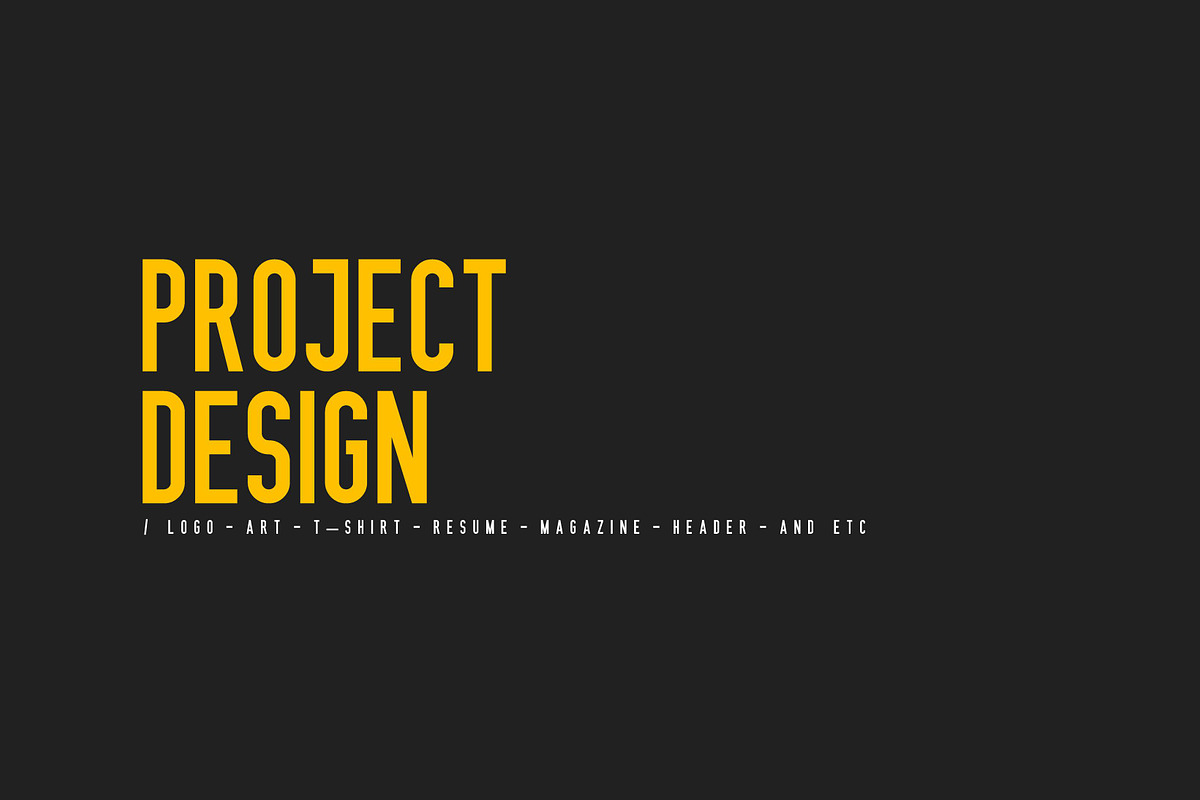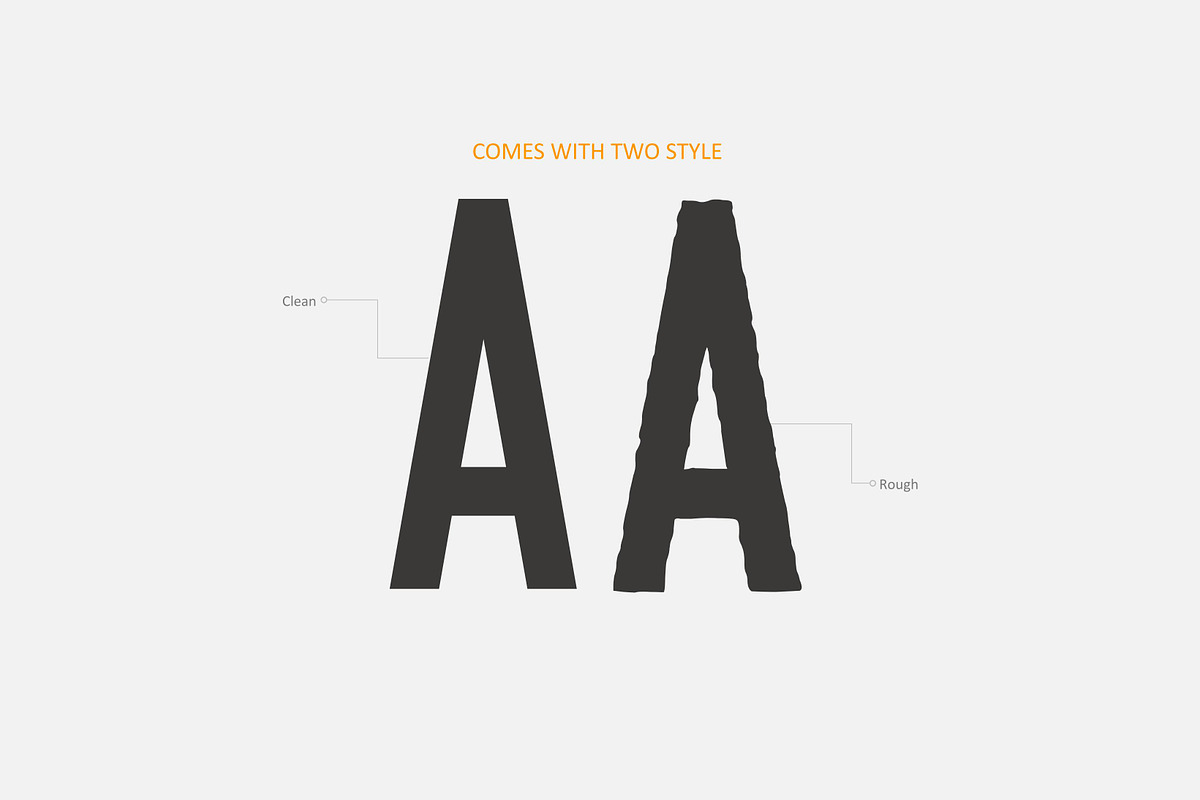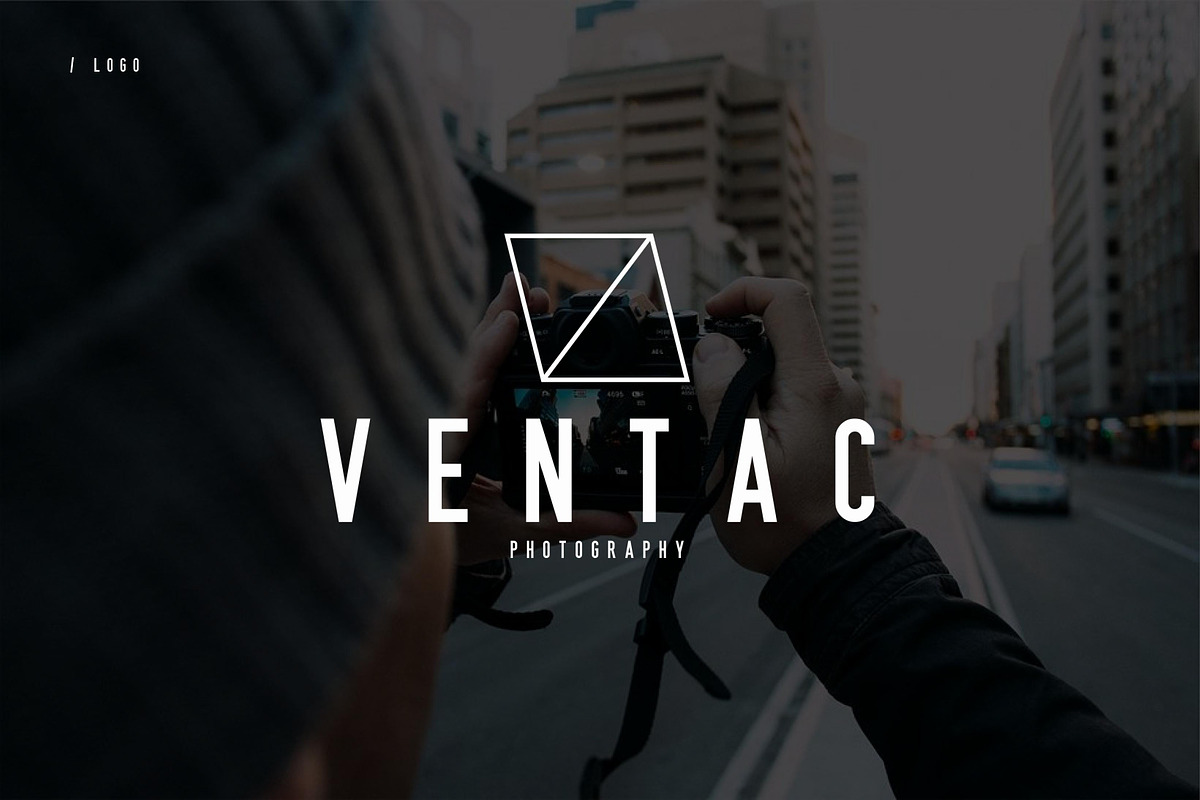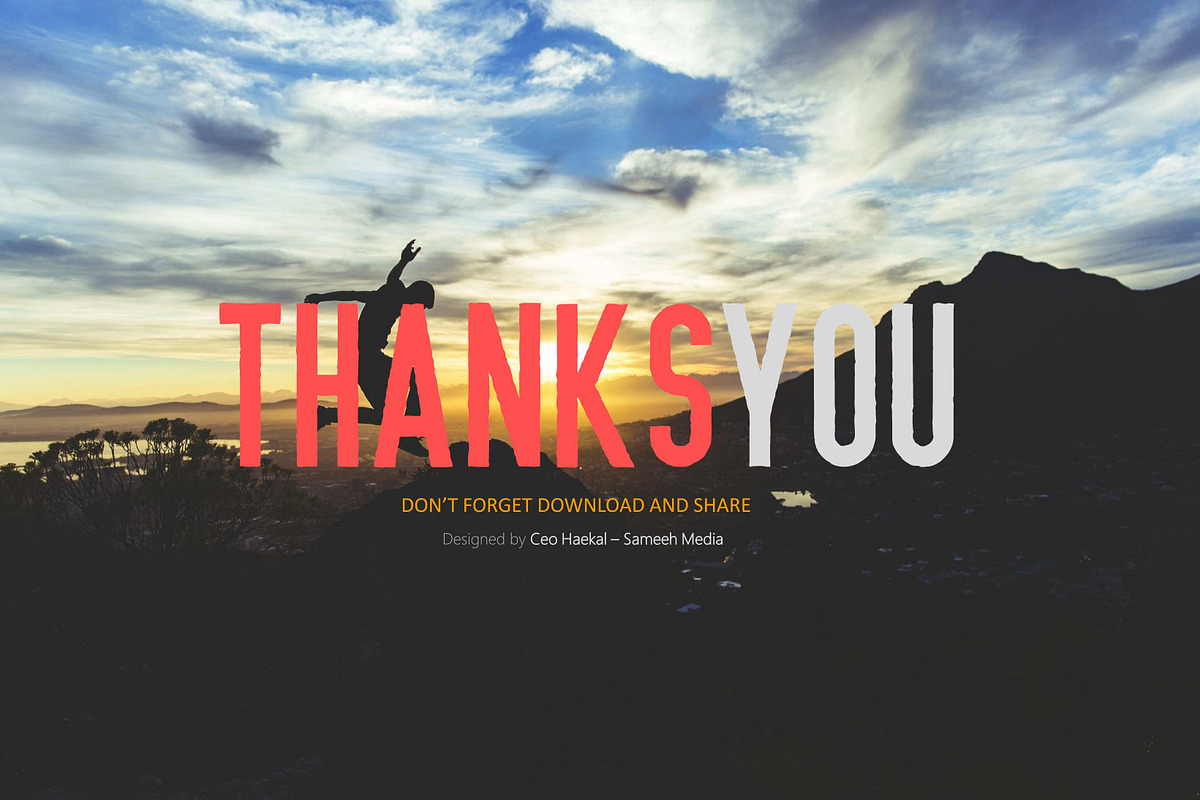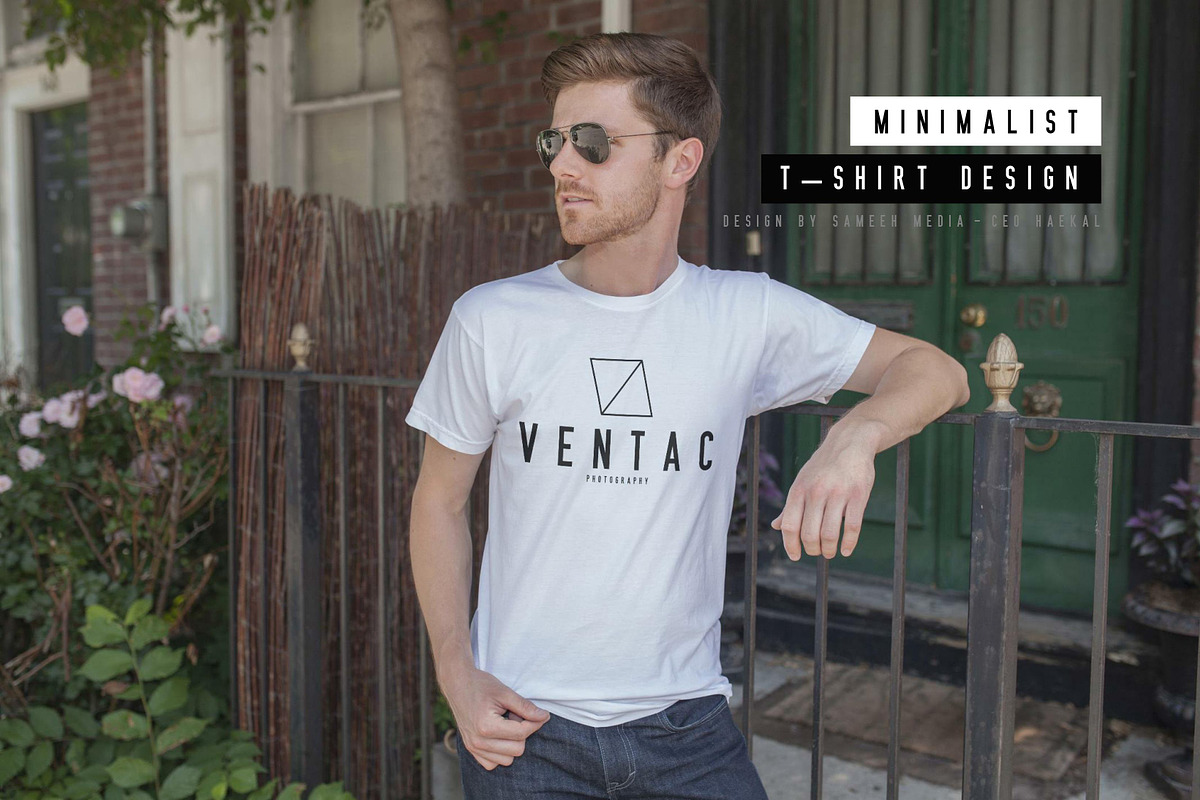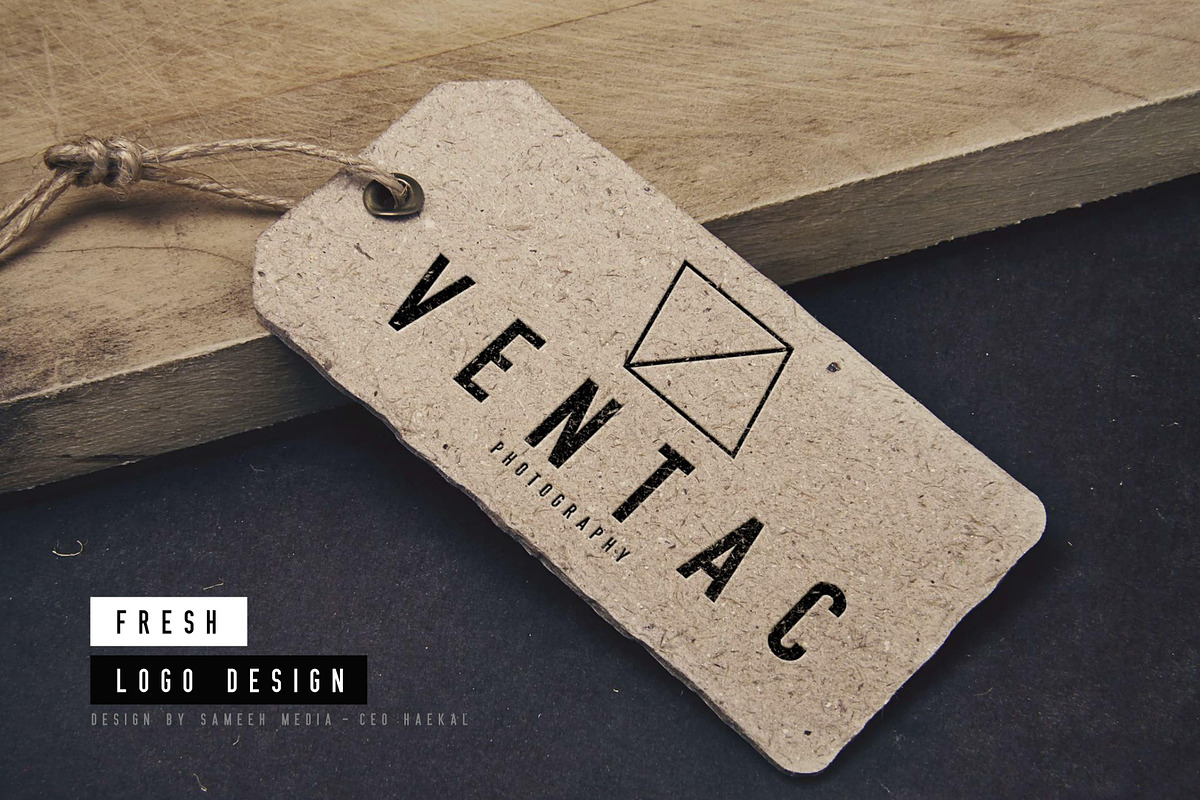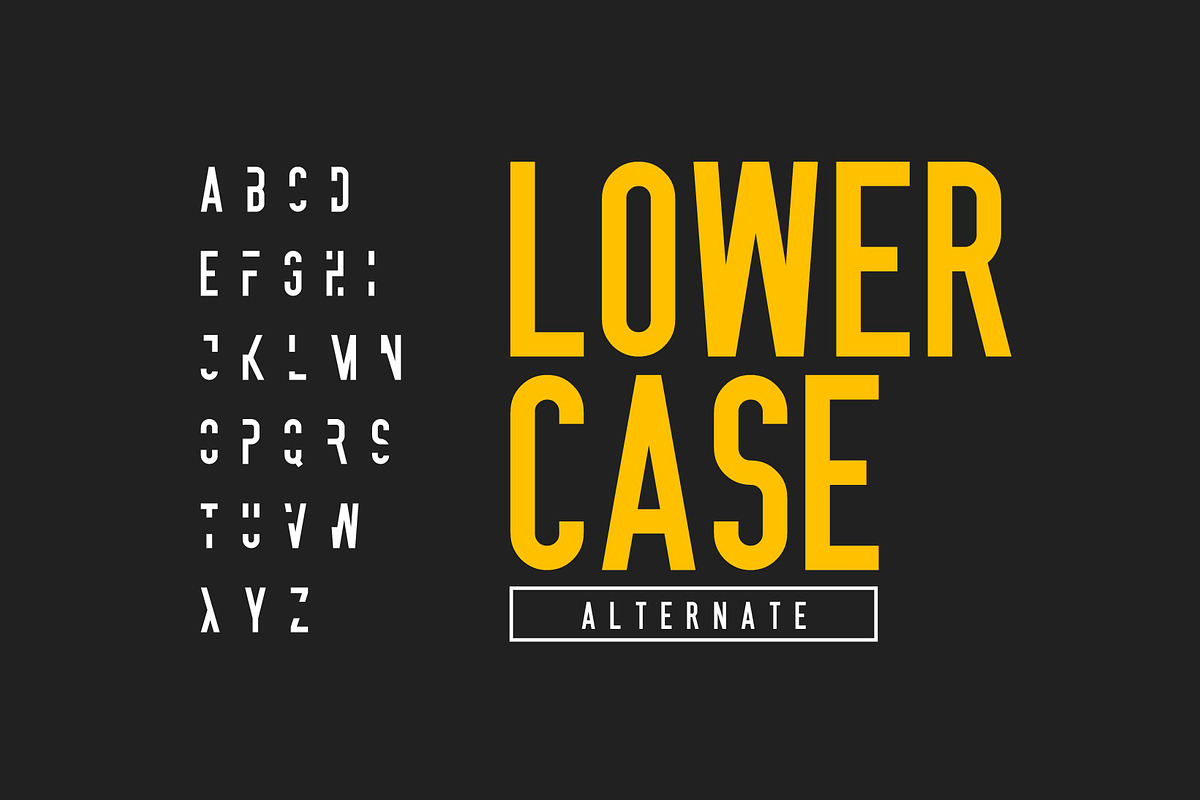
Sabang Island Typeface
Sabang is a city located on Pulau Weh and is the gateway in the western tip of Indonesia. Currently Sabang transformed into a marine tourism destination Indonesia that offers a paradise for divers.
From this island we are inspired to give the name of the product we made.
Two weights (Clean & Rough)